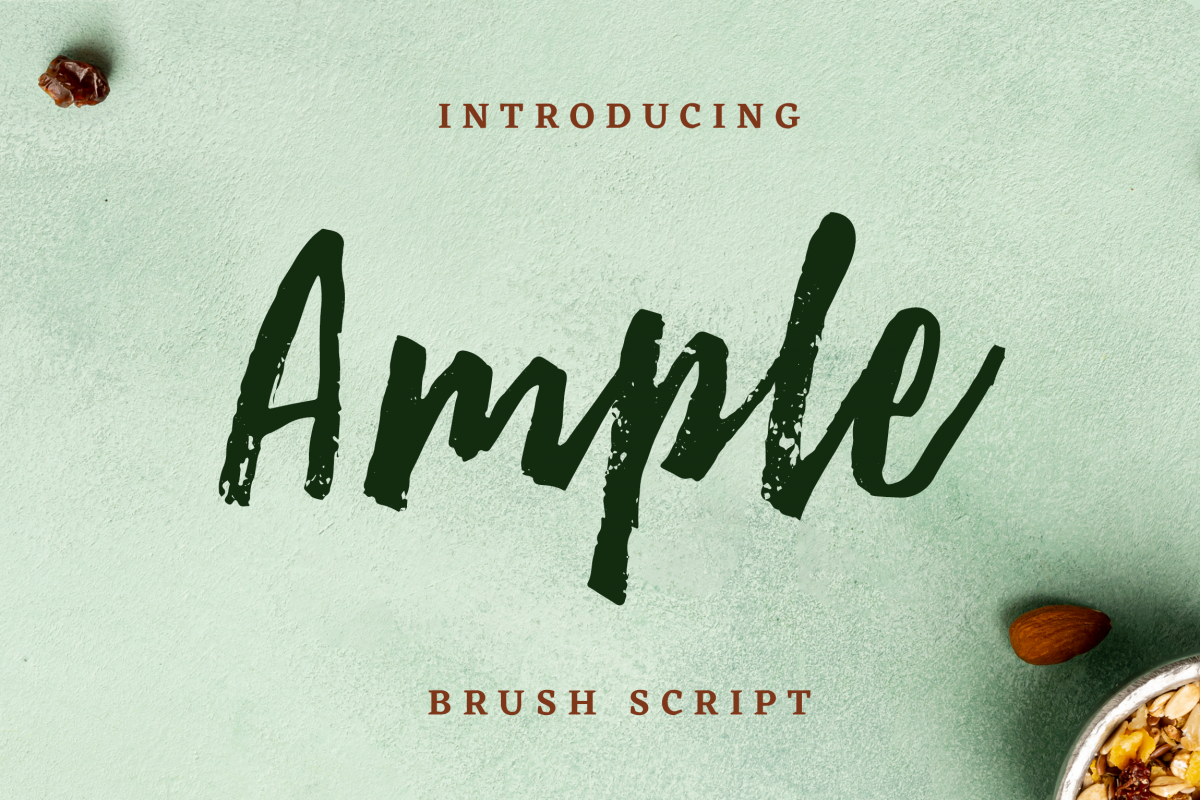
Ample Brush Script
Ample Script
Introducing, Ample Brush Script. This hand-made font is well crafted with original dry brush imperfections that make this font perfect for delivering an extremely fearless message in your design without losing the natural impression.Ample Brush Script is very suitable for various types of design needs such as branding materials, t-shirt, food-packaging, business cards, logos, posters, and more.This font comes with a complete set of lowercase alternates, numerals, a large range of punctuation ligatures and Special European Characters. The OpenType features can be accessed by using OpenType savvy programs such as Adobe Illustrator, Adobe InDesign, and Adobe Photoshop